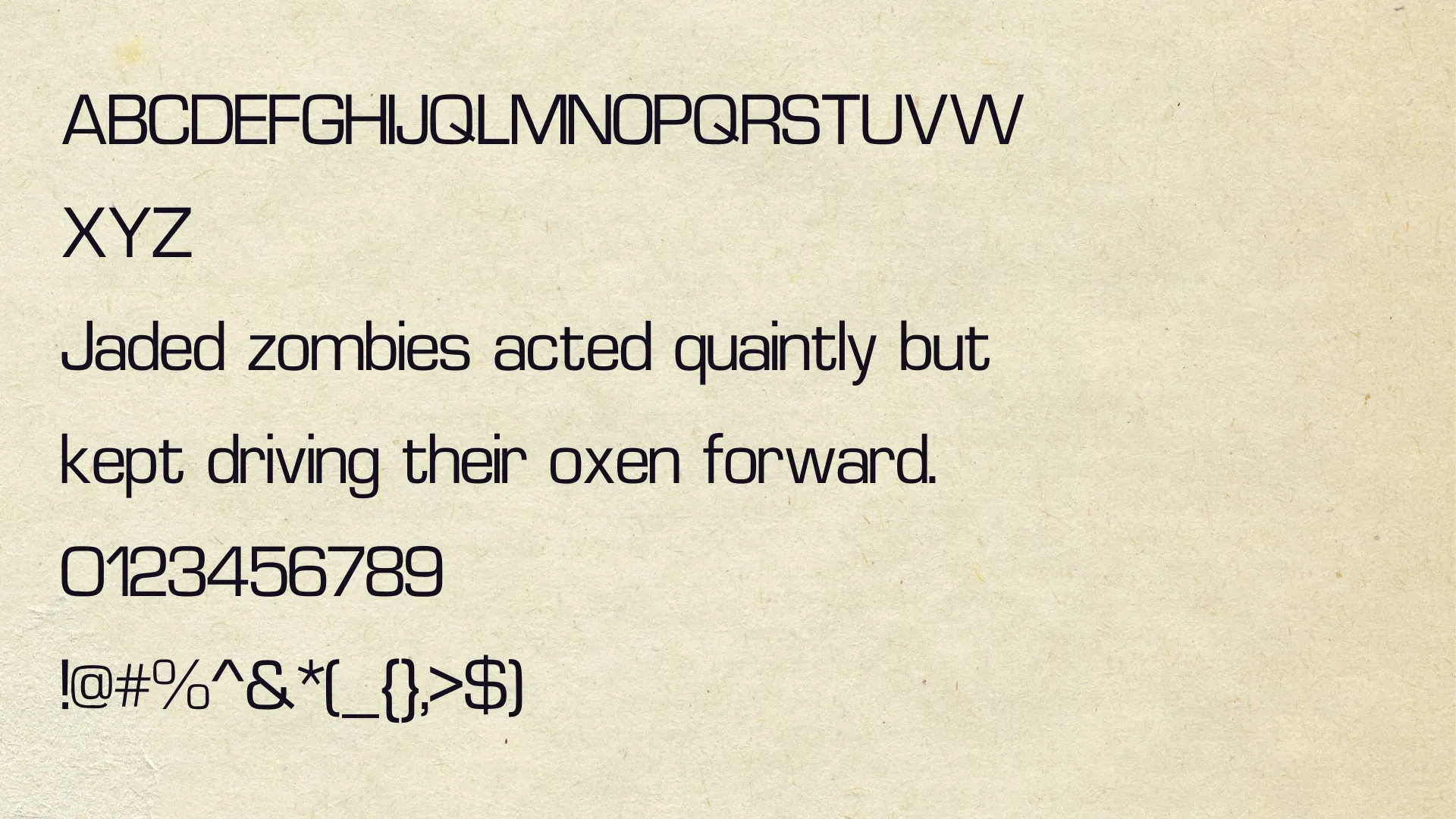
Eurostile Font is a part of the Sans-serif font family. It is a prolonged font style that is really popular for its italic and bold features. It is one of the best fonts and is mostly utilized in commercial projects and designs.
It has the most defined and clean texture that can easily utilize for display and body text uses. It is compatible with both big and small screen size displays. It can also utilize in different projects like logos, posters, website designs, labeling, etc.
This typeface also has some alternate personalities. So, these typeface personalities can also utilize in replacement of this font style. You can easily compare it with girly font.
Creator of Eurostile Font
This defined and clean texture style is designed by Aldo Novarese. He was an Italian typography designer who has made himself quite popular in the typography world by creating a number of font styles that are well-known.
While creating this font style the key focus on his mind was perfect readability. He works mostly at the Turin.
This font texture is comprised of a wide family of its own. Each style is unique in its own way. Every single style has uppercase and lowercase alphabets, numbers, symbols, punctuations, sets of glyphs, and multi-language support that widens the usage and popularity of this font style.
It can support greater than 50 languages.
What type of font is Eurostile font?
It is a clean and elegant typeface that is a type of Sans-Serif Font family. This elegant typeface is created by Aldo Novarese.
What font is closest to Eurostile Font?
Some of the typographies are really similar to this font texture. But, avenir font has the utmost similarities to this font. So, feel free to use this typeface as an alternative to this font style.